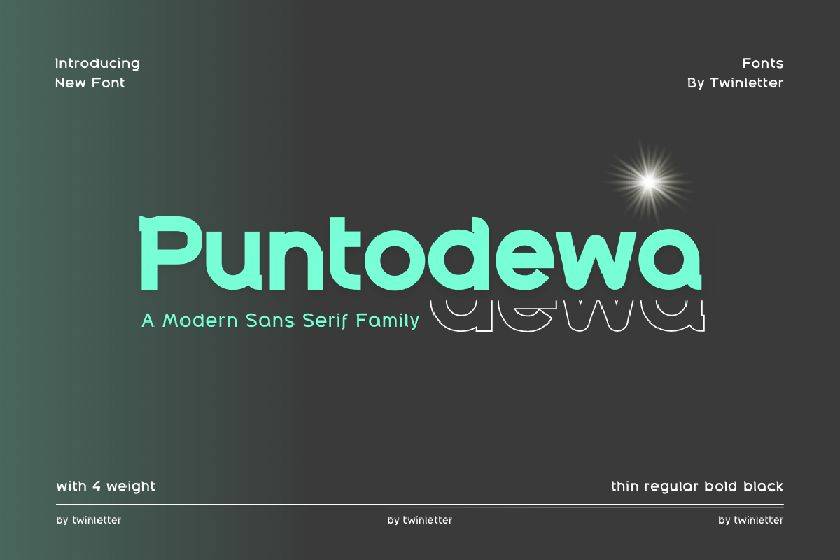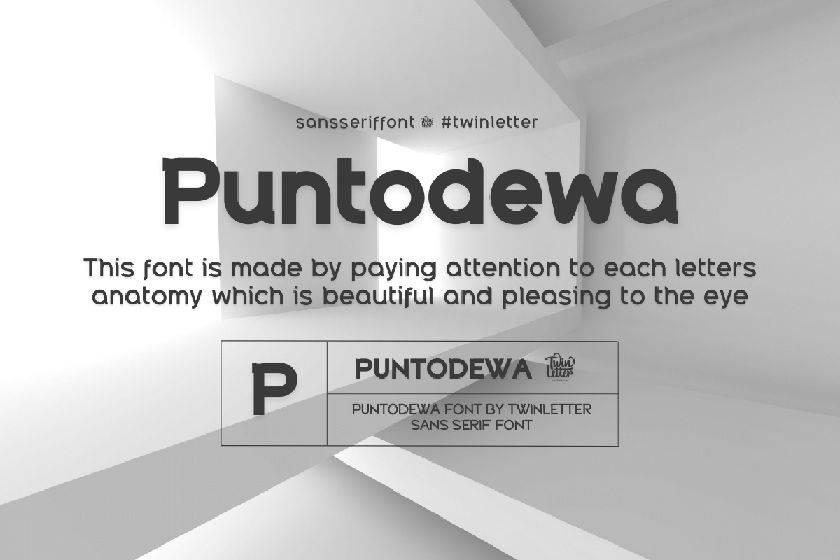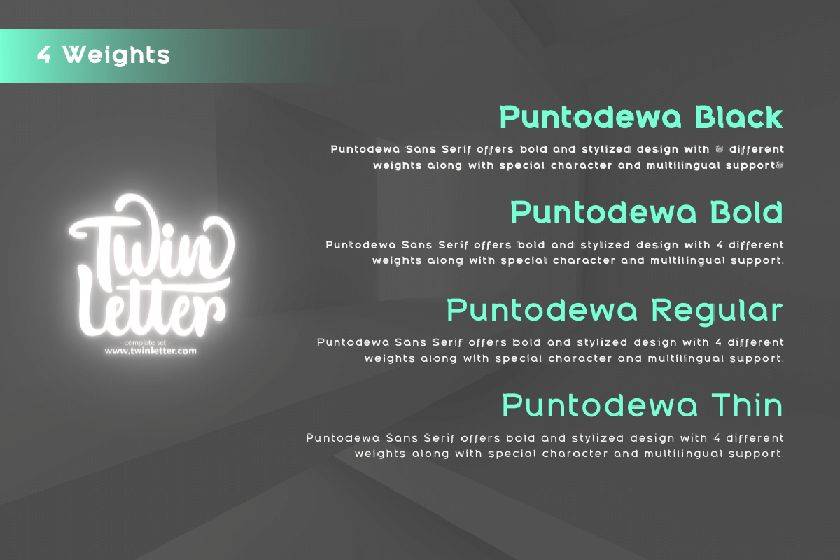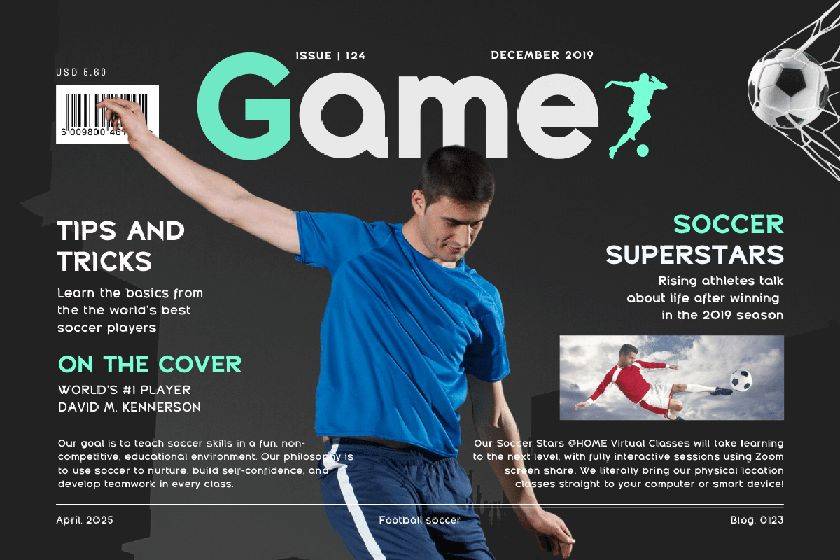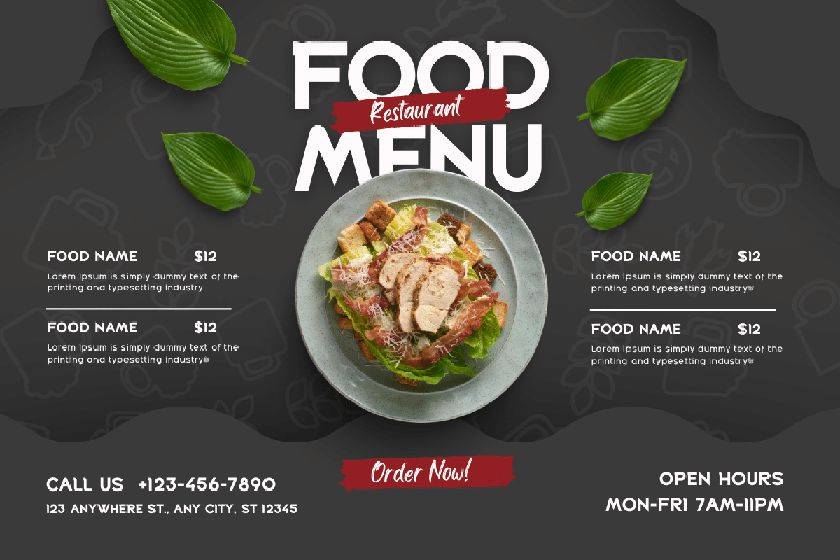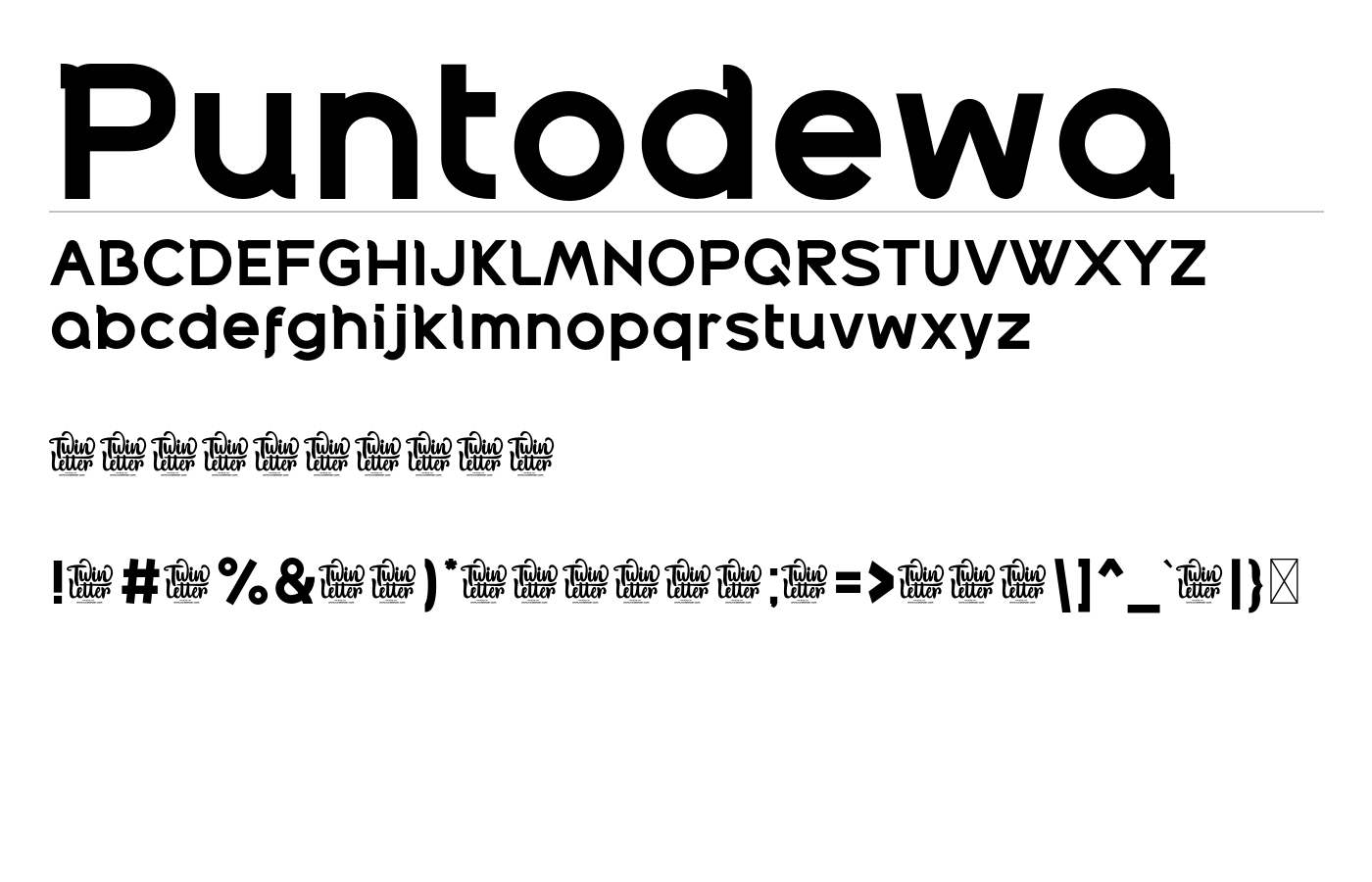
Puntodewa is a bold, geometric sans serif font with a clean and modern look. Its strong and slightly condensed letterforms, coupled with a high x-height and minimal stroke contrast, make it highly legible and ideal for headlines, logos, and branding that demand a contemporary and confident style. This font works well for creative industries, tech brands, and editorial design where clarity and impact are essential.
Puntodewa Font
About Puntodewa Font
| Font family | Puntodewa Font |